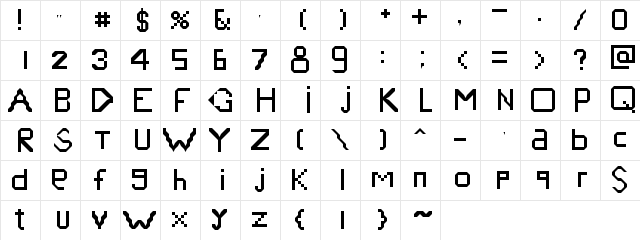
Old school Regular
Design Context for Old school Typeface
Old school is a composed and adaptable typeface that performs quietly and consistently across a wide range of design contexts.
Pro Tip: Use Old school in both headline and body roles to test its range before committing to a single application.